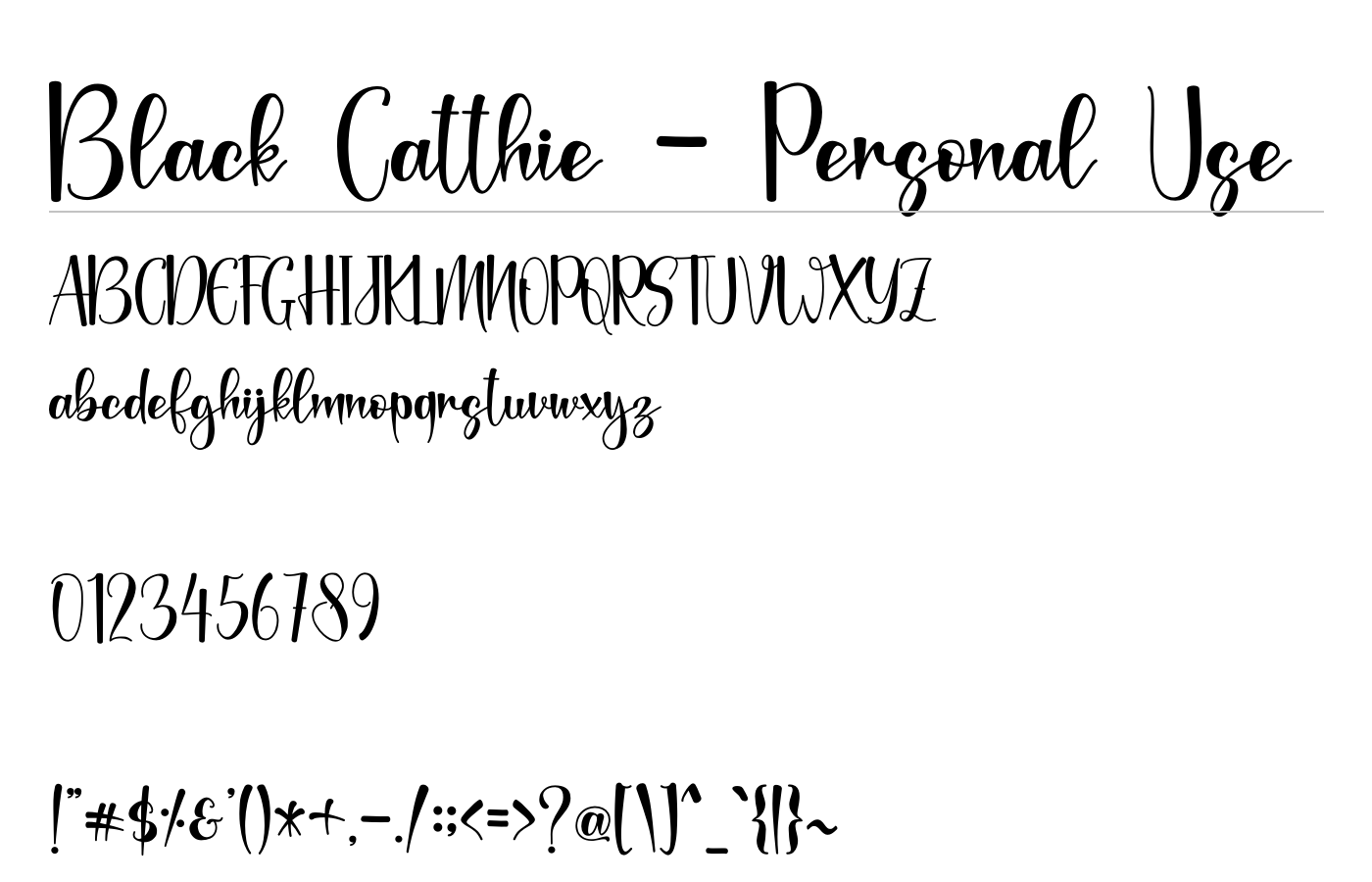
Black Catthie is a playful, modern script font with tall, slender letterforms that combine smooth curves and sharp strokes, giving it a lively yet elegant feel. Its varying stroke weight and unique handwritten style make it ideal for creative projects, personal branding, and invitation designs where a touch of charm and personality is desired. This font works beautifully for headlines, logos, and decorative text that needs a stylish, approachable flair.
Black Catthie - Personal Use Font
About Black Catthie - Personal Use Font